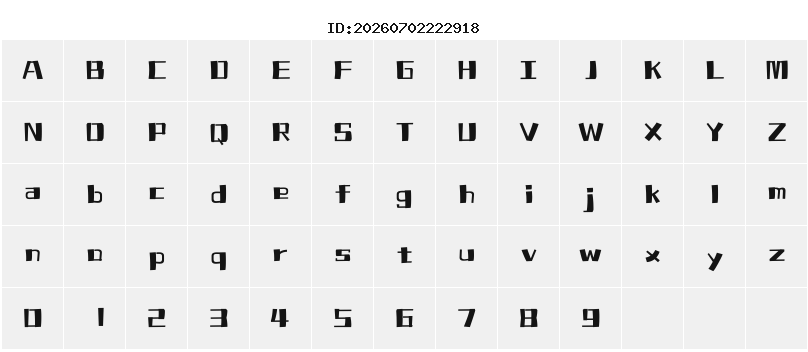
269-上首涂鸦体 Preview
• Font Name: 269-上首涂鸦体
• Font ID: 269-SSTuYaTi:Version 1.00
• Full Font Name: 269-上首涂鸦体
• Version: Version 1.00 August 29, 2023, initial release
• PostScript Name: 269-SSTuYaTi
• Character Count: 7569
• Manufacturer: 上首造字
About 269-上首涂鸦体.ttf
269-上首涂鸦体.ttf is a modern, elegant sans-serif font designed for ultimate readability and visual harmony. Perfect for branding, headlines, web design, and print materials.